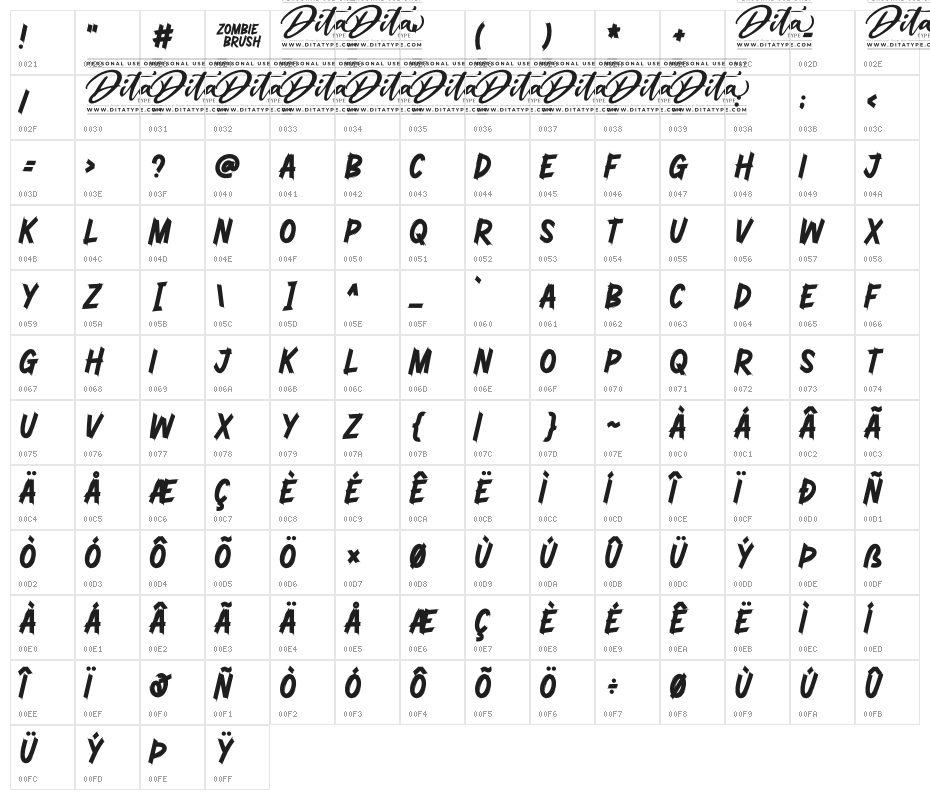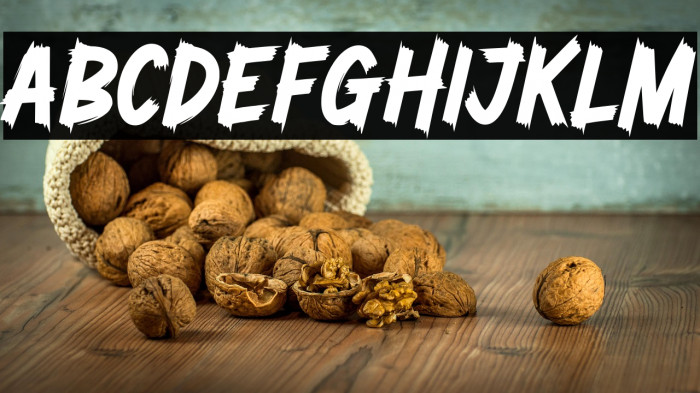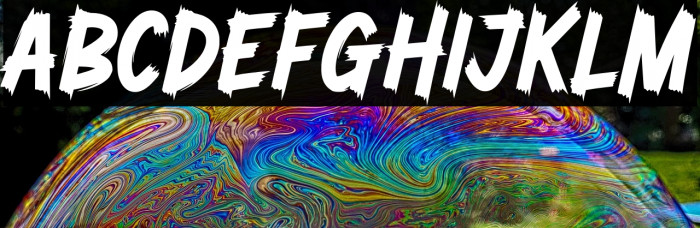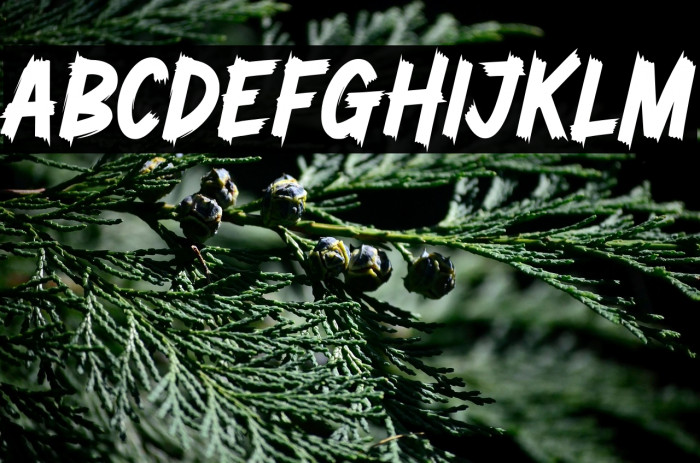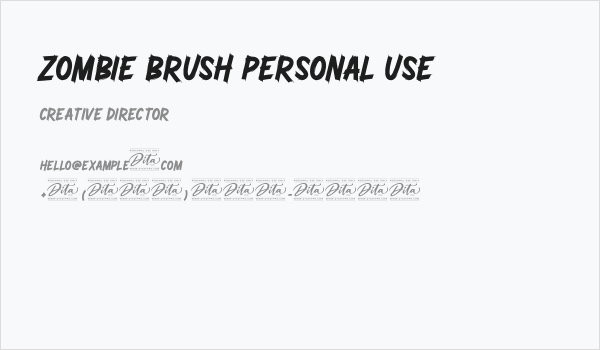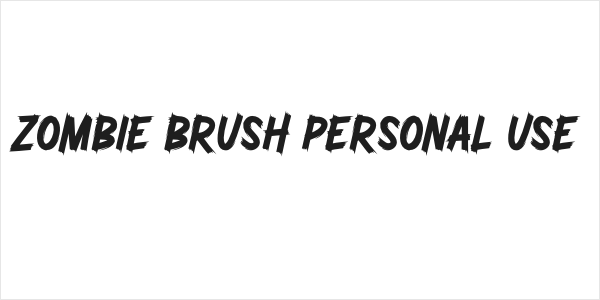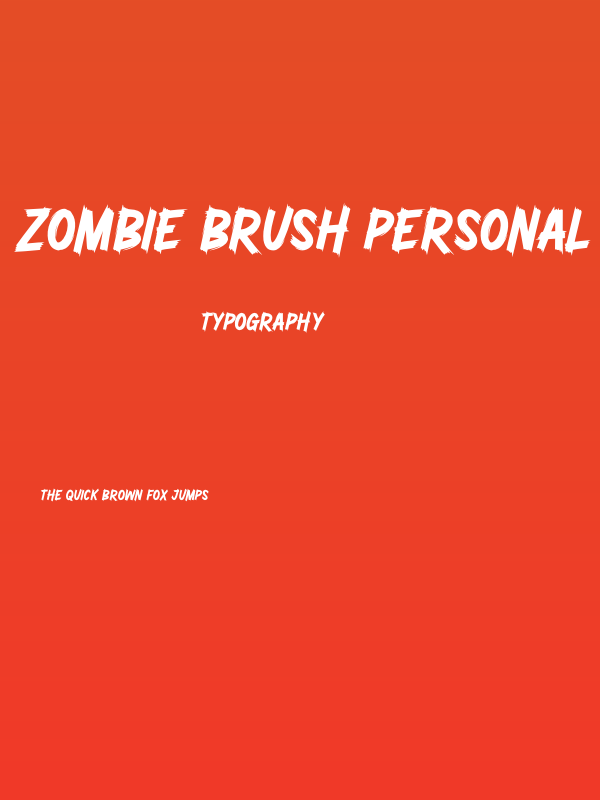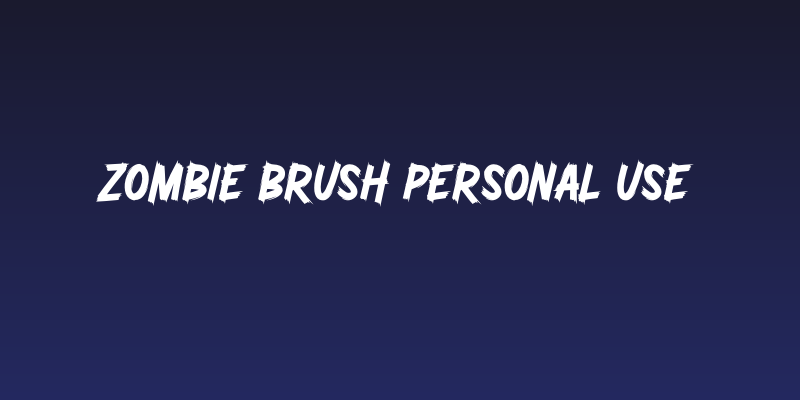
Zombie Brush Personal Use Font
Zombie Brush Personal Use Description
This font features a bold and energetic brush style, characterized by its dynamic and jagged strokes. The letters have an irregular, hand-painted appearance, giving them a raw and edgy feel. The uppercase and lowercase characters maintain a consistent style, with sharp angles and a sense of movement. The numbers and special characters follow the same aesthetic, ensuring a cohesive look across all text. The font's design is both eye-catching and expressive, making it suitable for projects that require a strong visual impact.
| Overall Style | Modern, Artistic |
| Proposed Projects | Ideal for posters, album covers, event flyers, and any design needing a bold, artistic touch. |